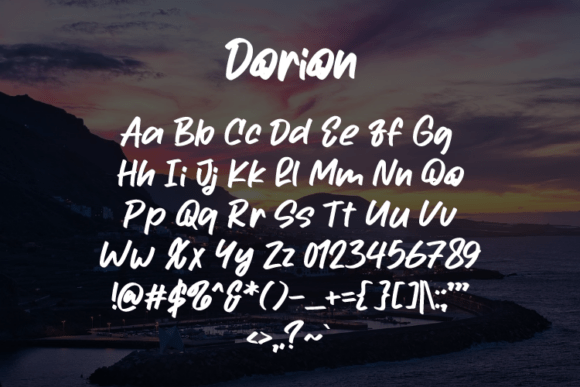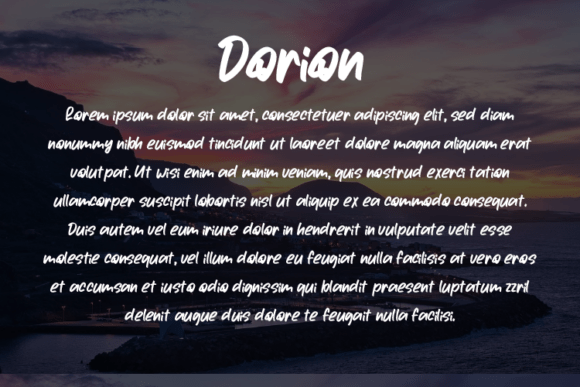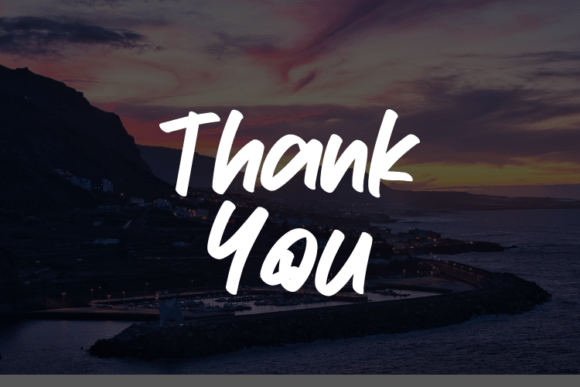
Discover the Power of Flexibility: Introducing Dorion Font
Have you ever stared at a blank page, struggling to find the perfect font to bring your creative vision to life? As designers, we’ve all been there. But what if I told you that there’s a font that can make your life easier, while still delivering the elegance and sophistication your designs deserve? Enter Dorion Font, a modern and versatile typeface designed to excel in a variety of settings.
- Unique Characteristics: Elegant script font with a touch of modernity, perfect for creating visually appealing titles, headings, and logos
Dorion Font Review
Overall, I found the Dorion font to be a visually appealing choice for digital designs, with a unique blend of modern and vintage elements.
- ✨ Unique blend of modern and vintage elements, giving it a distinctive look.
- ✨ Highly legible in both digital and print formats, making it suitable for various design applications.
- ✨ Supports multiple font weights, allowing designers to achieve a range of styles and moods.
- ⚠️ Limited language support, which may be a concern for designers working with multilingual content.
- ⚠️ Some users may find the font’s vintage elements overpowering or distracting, particularly in modern designs.
Overall, I would recommend the Dorion font for designers seeking a distinctive, high-contrast look for their digital designs. While it may not be the best choice for every project, it’s certainly a unique and effective option for those looking to add some personality to their work.
For the best results, use the Dorion font in conjunction with high-quality images and a clean design aesthetic. Experiment with different font sizes and styles to create visual interest. Consider using the font for headings or titles to add a touch of elegance to your design.
The Dorion font is ideal for use in luxury branding, high-end advertising, and elegant typography. It’s also suitable for use in wedding invitations, formal event materials, and other occasions where a sophisticated look is desired.